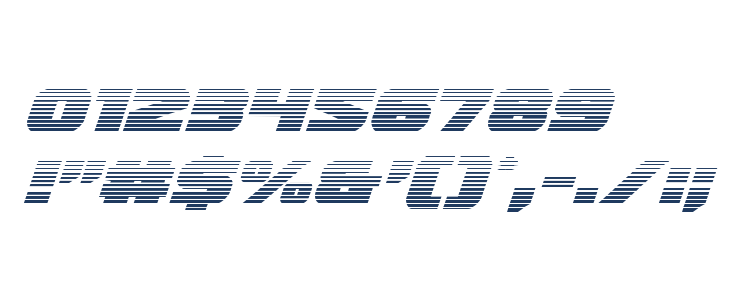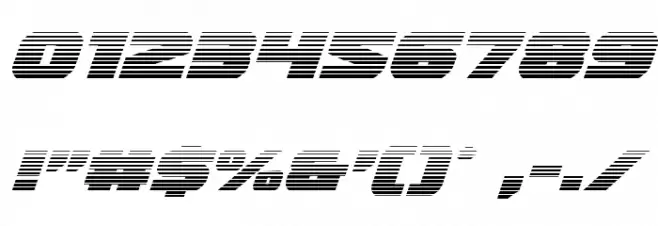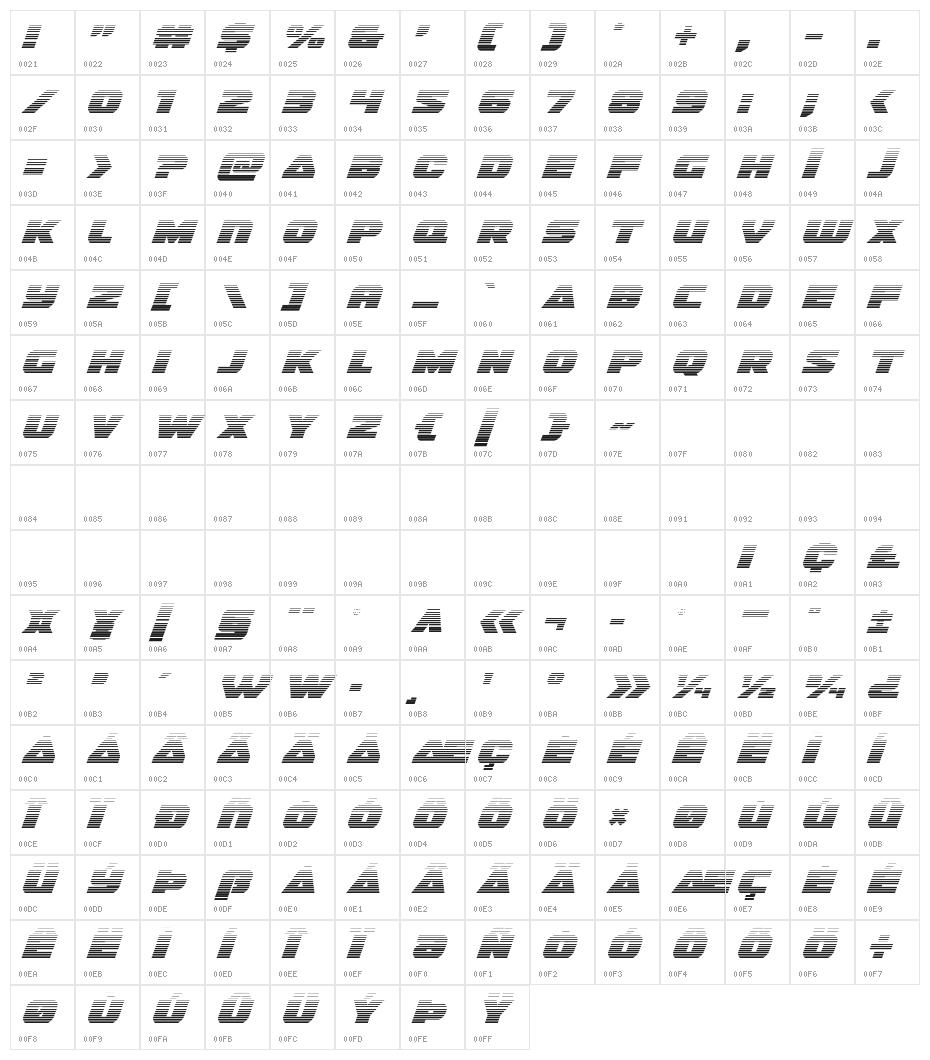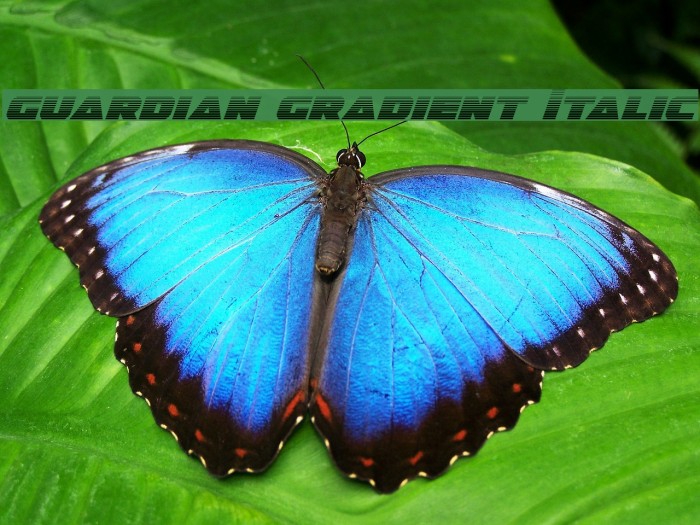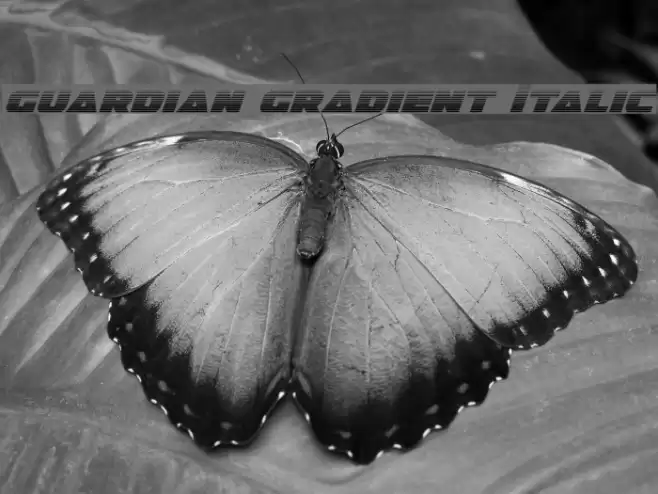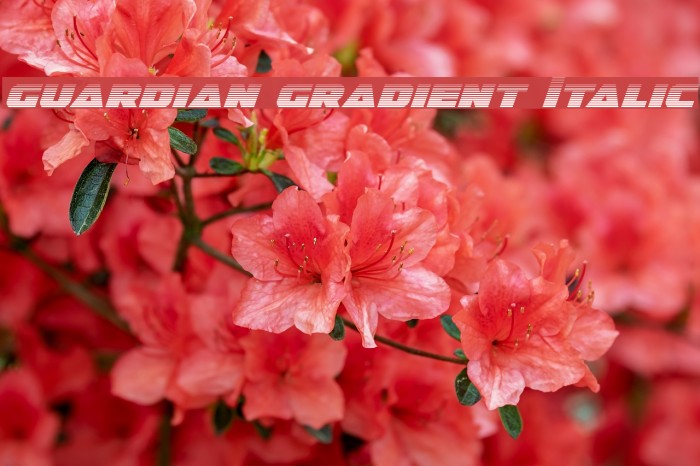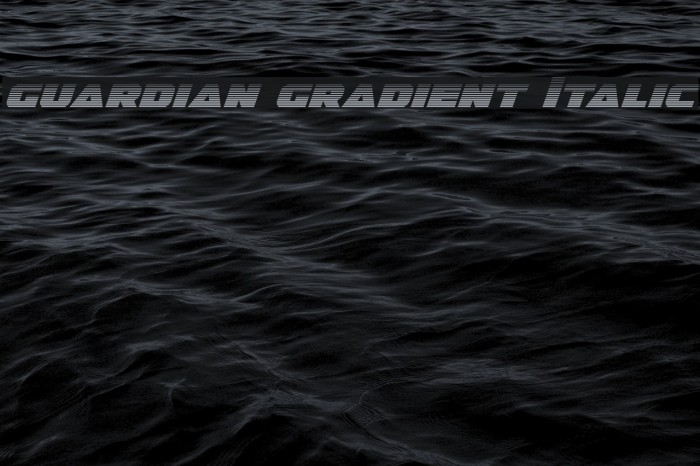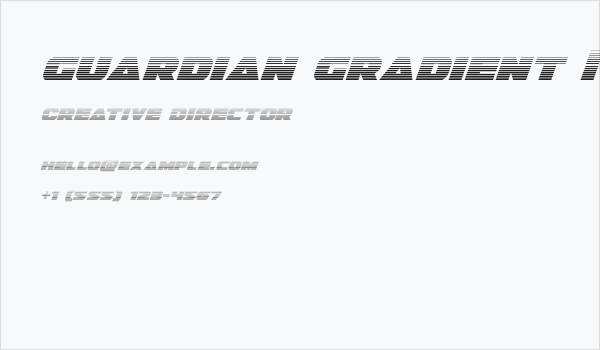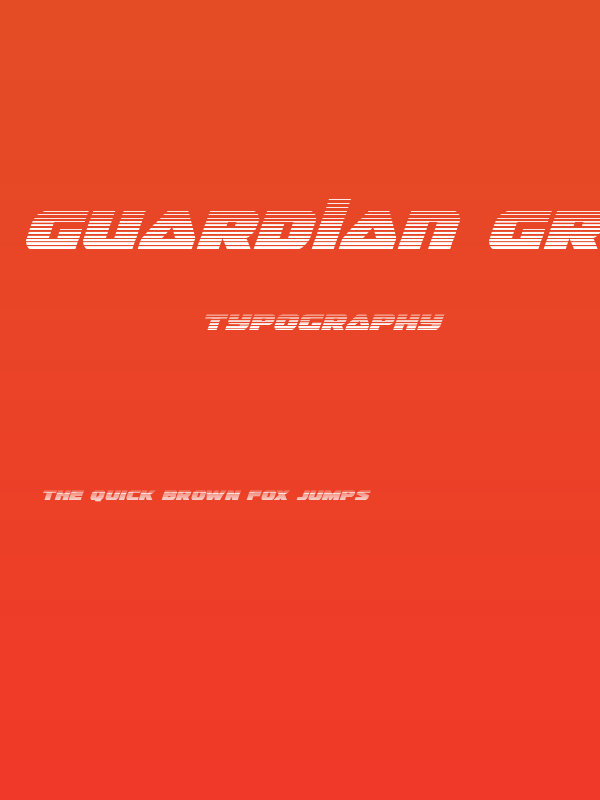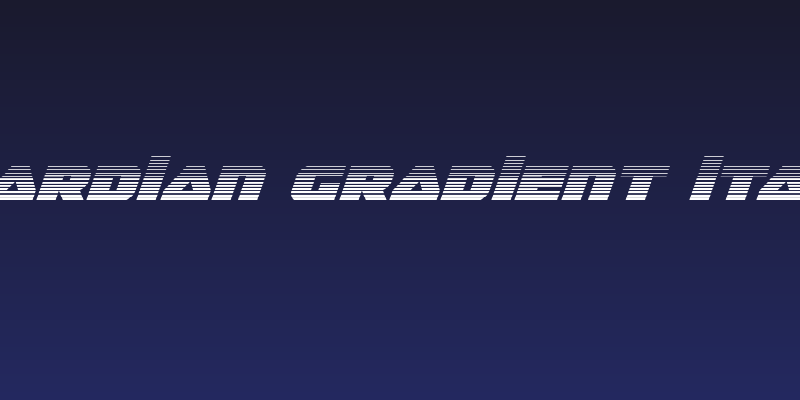
Guardian Gradient Italic Font
Guardian Gradient Italic Description
This font features a dynamic, italicized style with a unique gradient effect created by horizontal lines across each character. The bold, geometric shapes give it a futuristic and energetic appearance, making it stand out in any design. The uppercase and lowercase letters maintain a consistent slant, enhancing the sense of motion and speed. The numbers and special characters are designed with the same attention to detail, ensuring uniformity across all elements. Its distinctive look is ideal for projects that require a modern and edgy aesthetic.
| Proposed Projects | Ideal for sports branding, tech-related designs, futuristic posters, and dynamic advertising campaigns. |